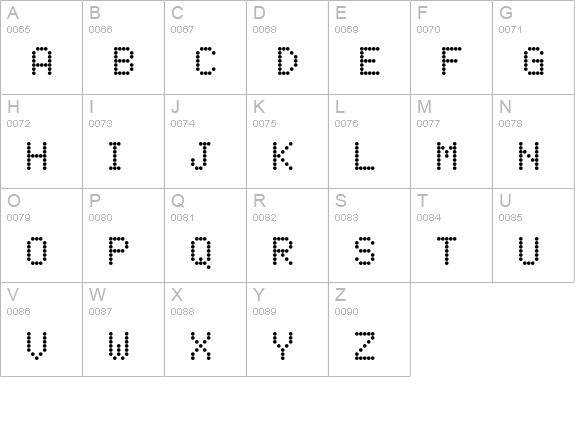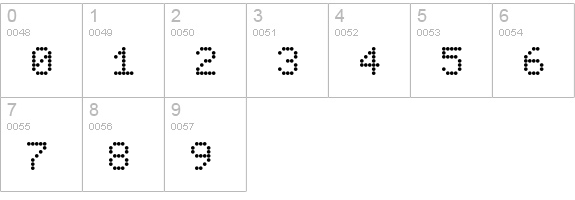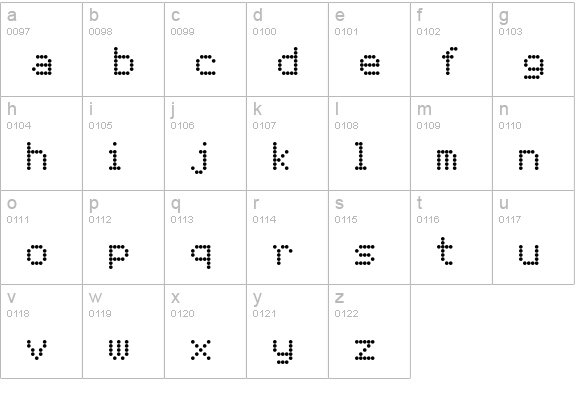
DotMatrix-TwoRegular is a stylish and versatile font that exudes a modern and futuristic vibe. Its unique dot matrix design gives it a sleek and contemporary look that is perfect for a wide range of design projects. This font is ideal for adding a touch of technology and innovation to your creations. What makes DotMatrix-TwoRegular even more appealing is that it is free to download at FontsMarket.com. This means that you can easily access this eye-catching font and use it in your projects without any cost. Whether you are designing a website, creating promotional materials, or crafting social media posts, DotMatrix-TwoRegular is sure to make a bold statement and captivate your audience. With its clean lines and minimalist aesthetic, DotMatrix-TwoRegular is a must-have font for any designer looking to add a modern touch to their work. Download it for free today and elevate your designs with this sleek and sophisticated typeface.